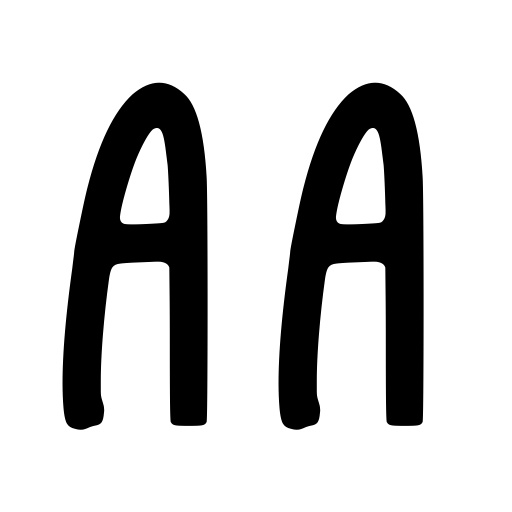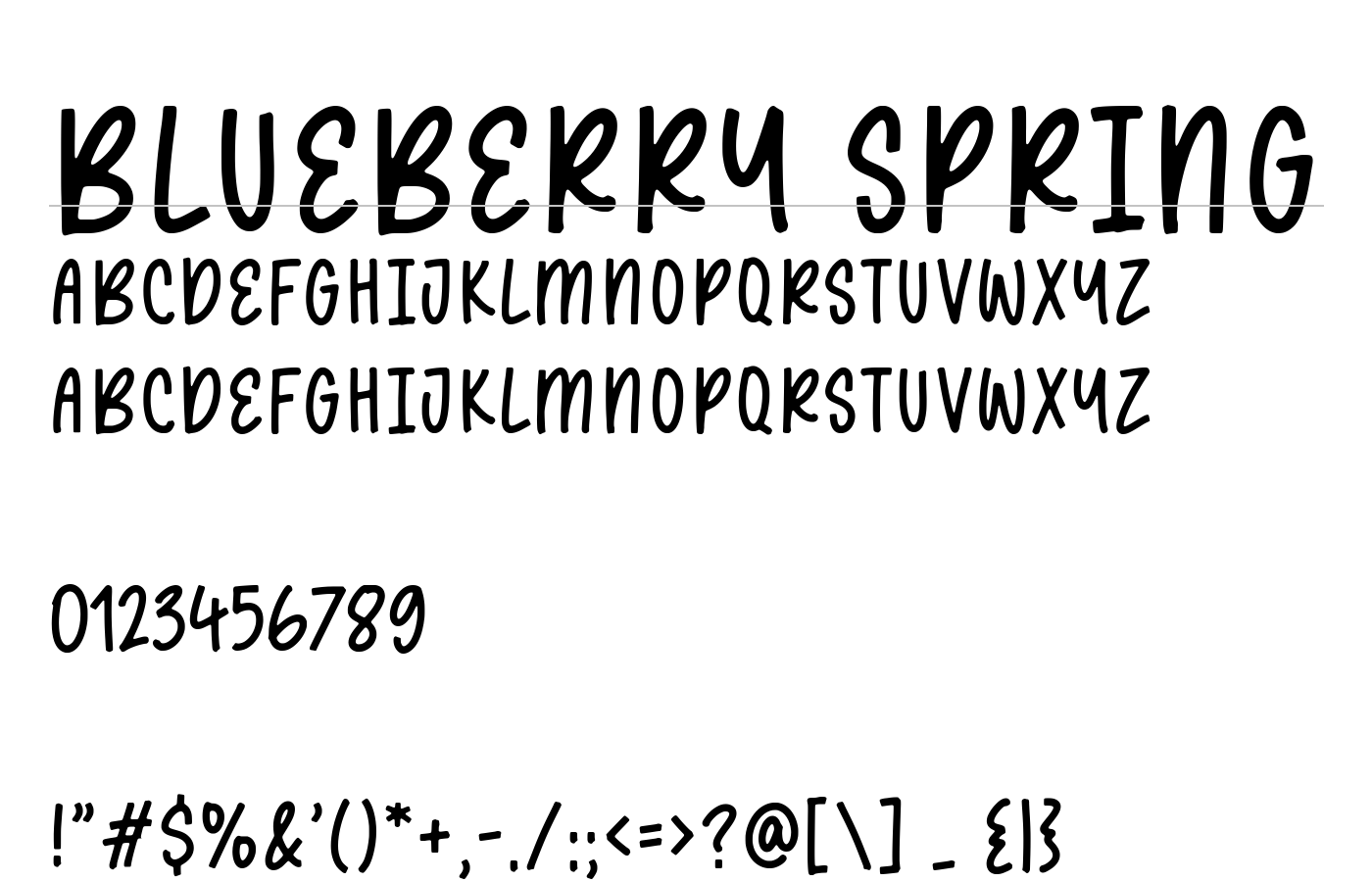
Blueberry Spring is a lively handwritten sans serif font with a casual and friendly feel. Its tall, slightly narrow letterforms and uneven strokes give it a playful, approachable character, making it perfect for informal designs, children’s materials, or creative branding that wants to feel personal and cheerful. This font works best in headlines, logos, and packaging where a warm, inviting touch is desired.
blueberry spring Font
About blueberry spring Font